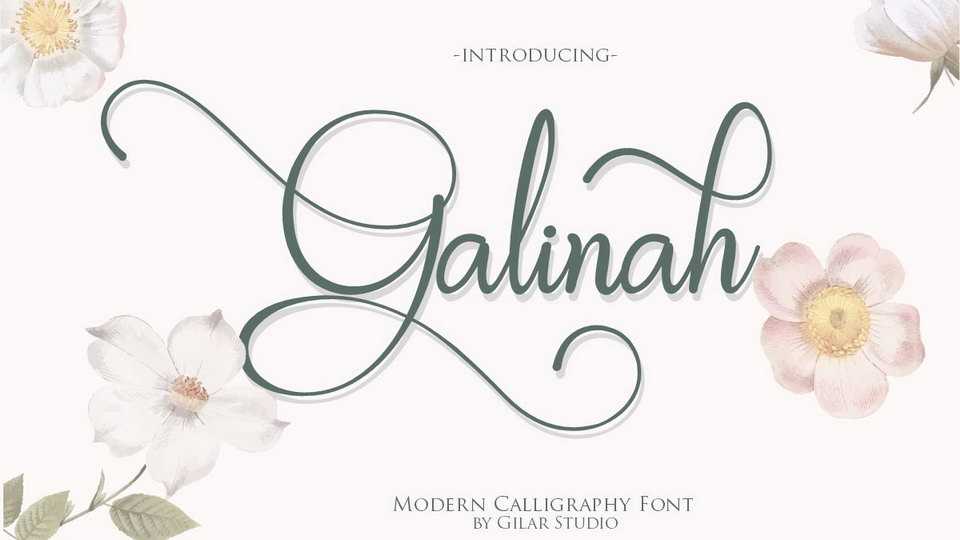
Download Galinah font, a beautiful modern calligraphy script. Galinah is perfect for elegant logos, upscale packaging, wedding stationery, websites, and any other projects requiring a handwritten and luxurious touch.